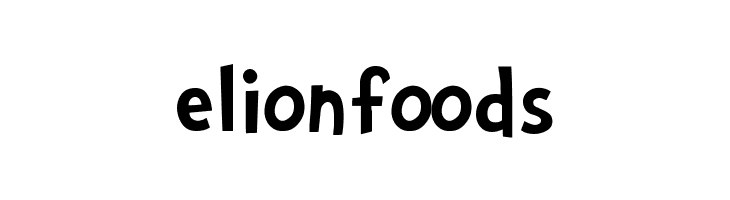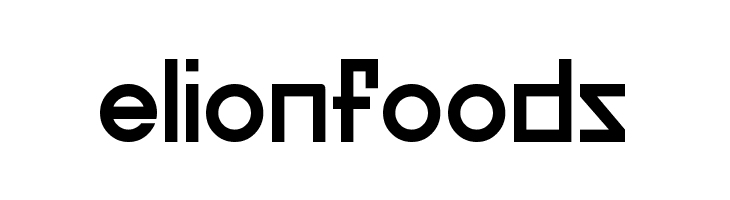
( deFharo - Fernando Haro - defharo.com )
A bold, geometric font with a modern and assertive style.
( deFharo - Fernando Haro - defharo.com )
A modern, geometric sans-serif font with a clean and balanced design.
( memesbruh03 - Aaron D. Chand )
A bold, pixelated font with a retro, video game-inspired design.
( ErikYin - Tzu-yuan Yin - behance.net/erikyin )
A bold, geometric font with a strong, block-like design.
A pixelated, geometric font with a retro digital vibe.
A pixelated, monospaced font with a retro digital aesthetic.
( Fonts by Inopatype )
A decorative font with bold characters in patterned flag-like banners.
( Fonts by Lauren Thompson - www.nymfont.com )
A romantic serif font with heart motifs, blending classic and decorative styles.
A bold, playful handwritten font with rounded, thick strokes.
( Omegaville - B.J. Winzer )
A pixelated cursive font blending classic script with retro digital aesthetics.
A modern, thin, and elegant font with elongated, narrow characters.
A bold, high-contrast font with dramatic curves and artistic flourishes.
A whimsical script font with elegant swirls and heart accents.
A playful, bold italic font with a handwritten style.
( Copyright 2018 The Cute Font Project Authors )
A playful, rounded font with smooth curves and a friendly appearance.
( Khurasan - Syaf Rizal - creativemarket.com/khurasan?u=khurasan )
A playful, cursive script font with elegant loops and swirls.
A playful, hand-drawn font with a fluffy, whimsical style.
( Fonts by DM Letter31 )
A playful, hand-drawn font with bold, rounded characters.
( Fonts by EyeCone )
A bold, decorative font with star-like embellishments and a futuristic style.
A graceful monoline script font with fluid, elegant strokes.
( Pixel Kitchen )
A futuristic, geometric font with a digital, tech-inspired design.
( Pixel Kitchen )
A futuristic, grid-based font with a digital, pixelated appearance.
( Pixel Kitchen )
Intricate, decorative font with a cybernetic, geometric design.
( Zephram )
A futuristic, grid-like font with a digital, pixelated aesthetic.
( Pixel Kitchen )
A futuristic, pixelated font with a digital, cybernetic style.
( Pixel Kitchen )
A futuristic, pixelated font with a digital and geometric design.